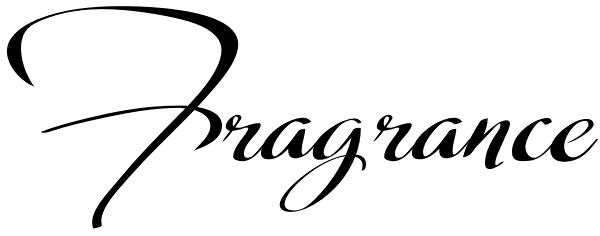
Fragrance
Fragrance was inspired by script styles of the twentieth century, and brought into the early 21st century with extravagant, sweeping, upper-case letters and smaller "x" height. Fragrance Antique is a new style for the delicate, feminine Fragrance...
Fragrance
Fragrance Antique